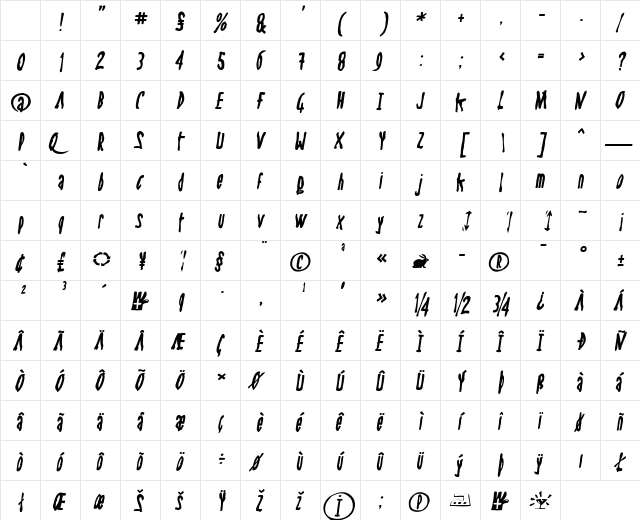
Steel is a composed and adaptable typeface that performs quietly and consistently across a wide range of design contexts. The slanted form adds forward momentum and visual energy. Its bold stroke weight gives it real presence on the page.
Pro Tip: Use Steel for emphasis, pull quotes, and subheadings where its slanted energy can add rhythm to the layout.